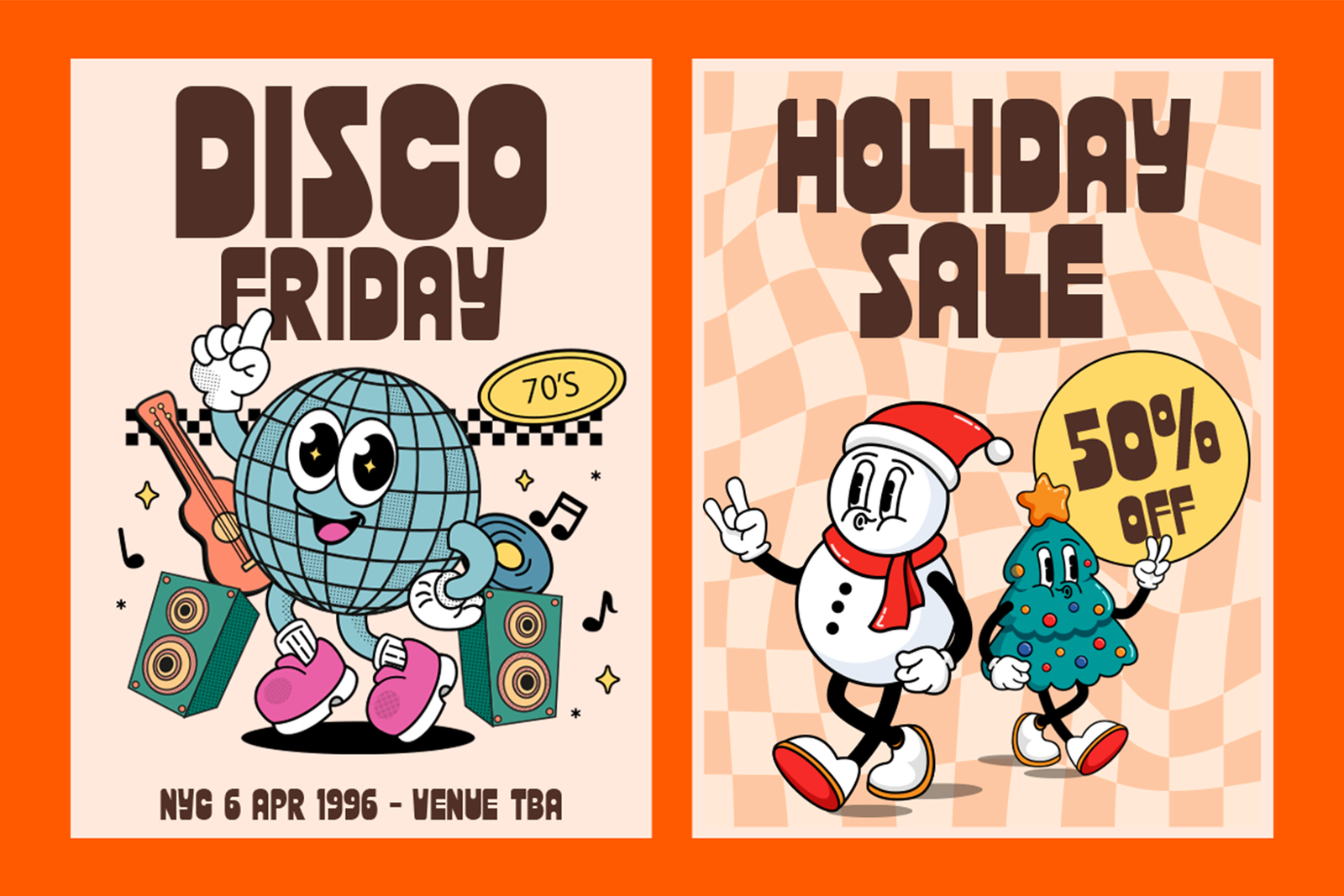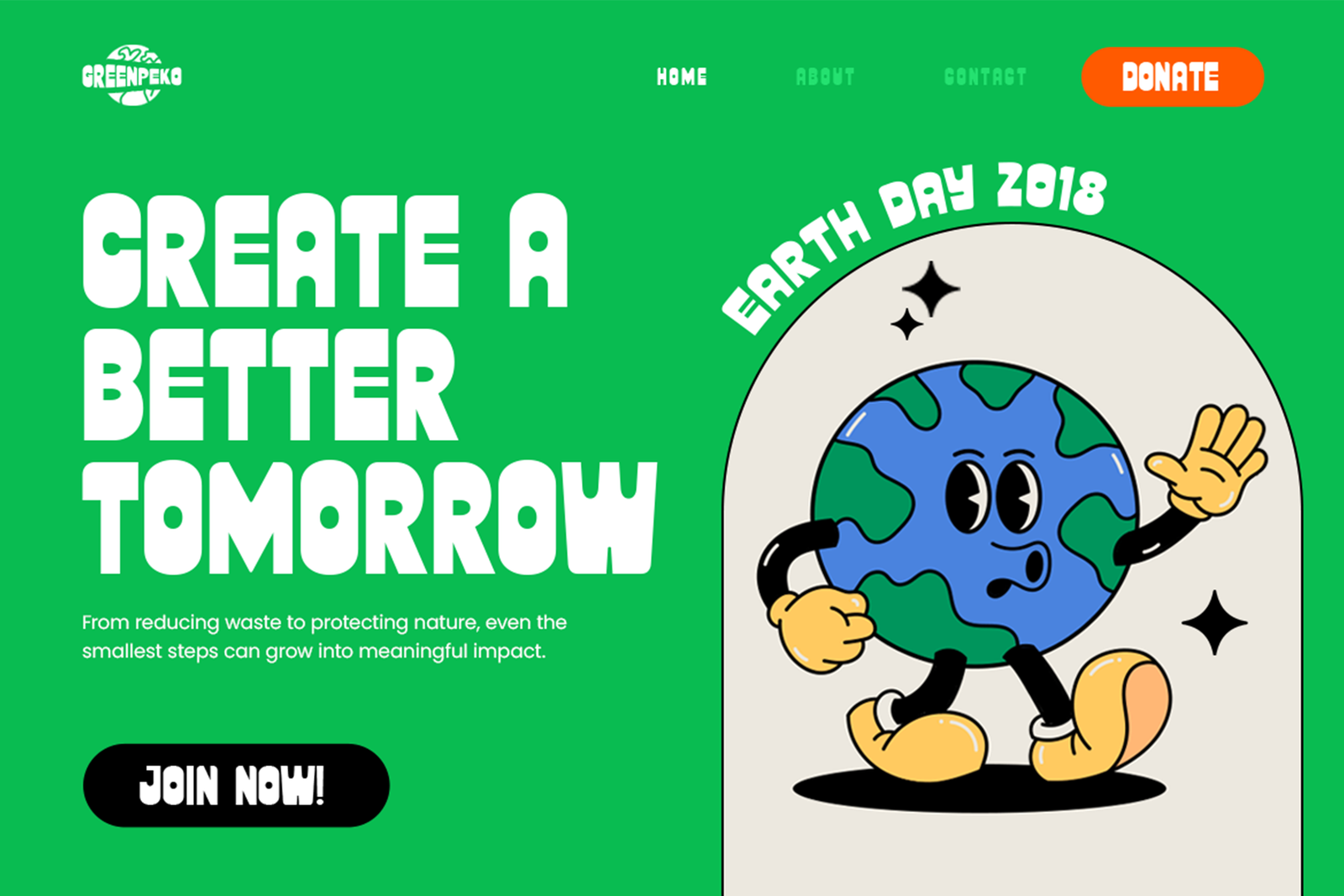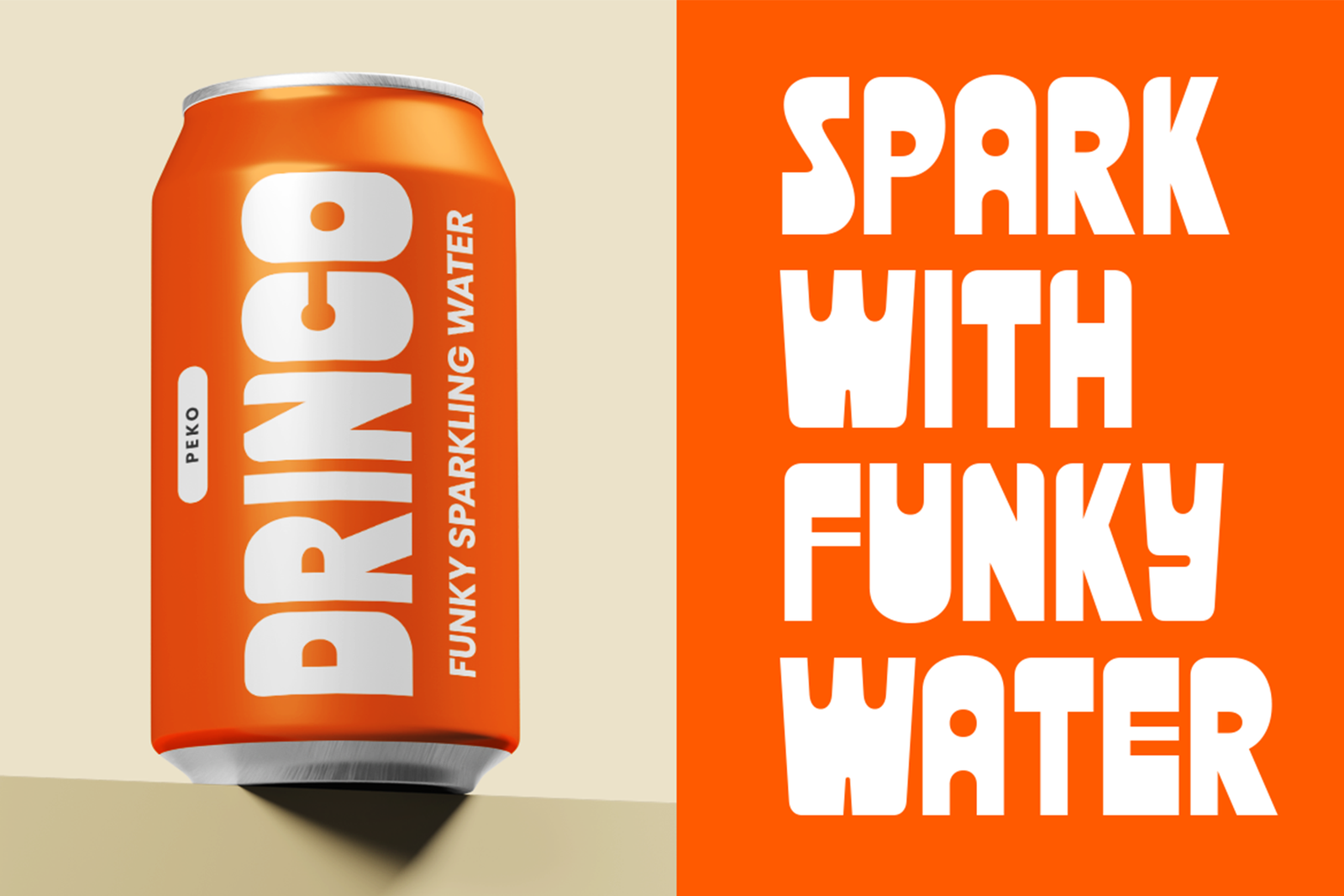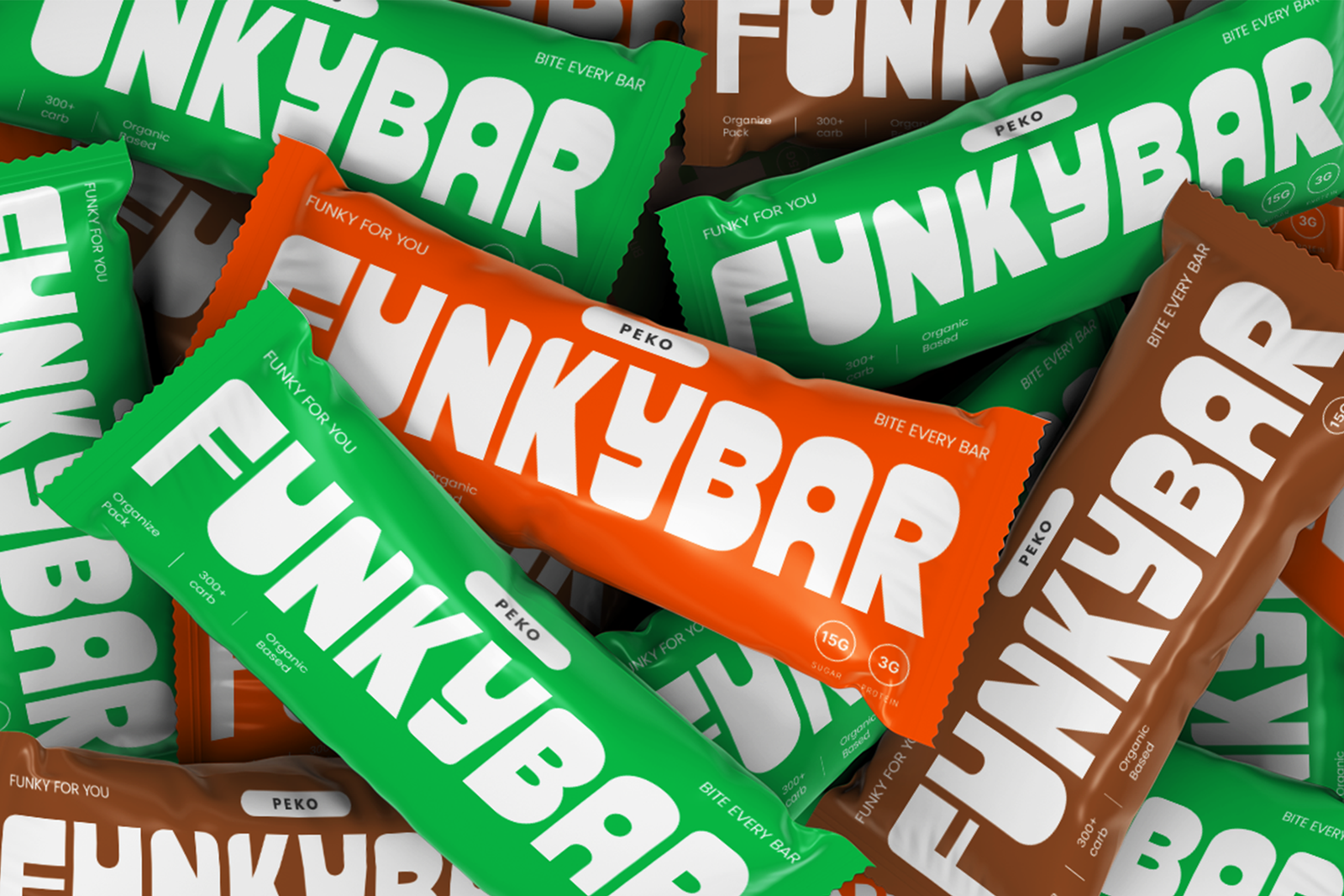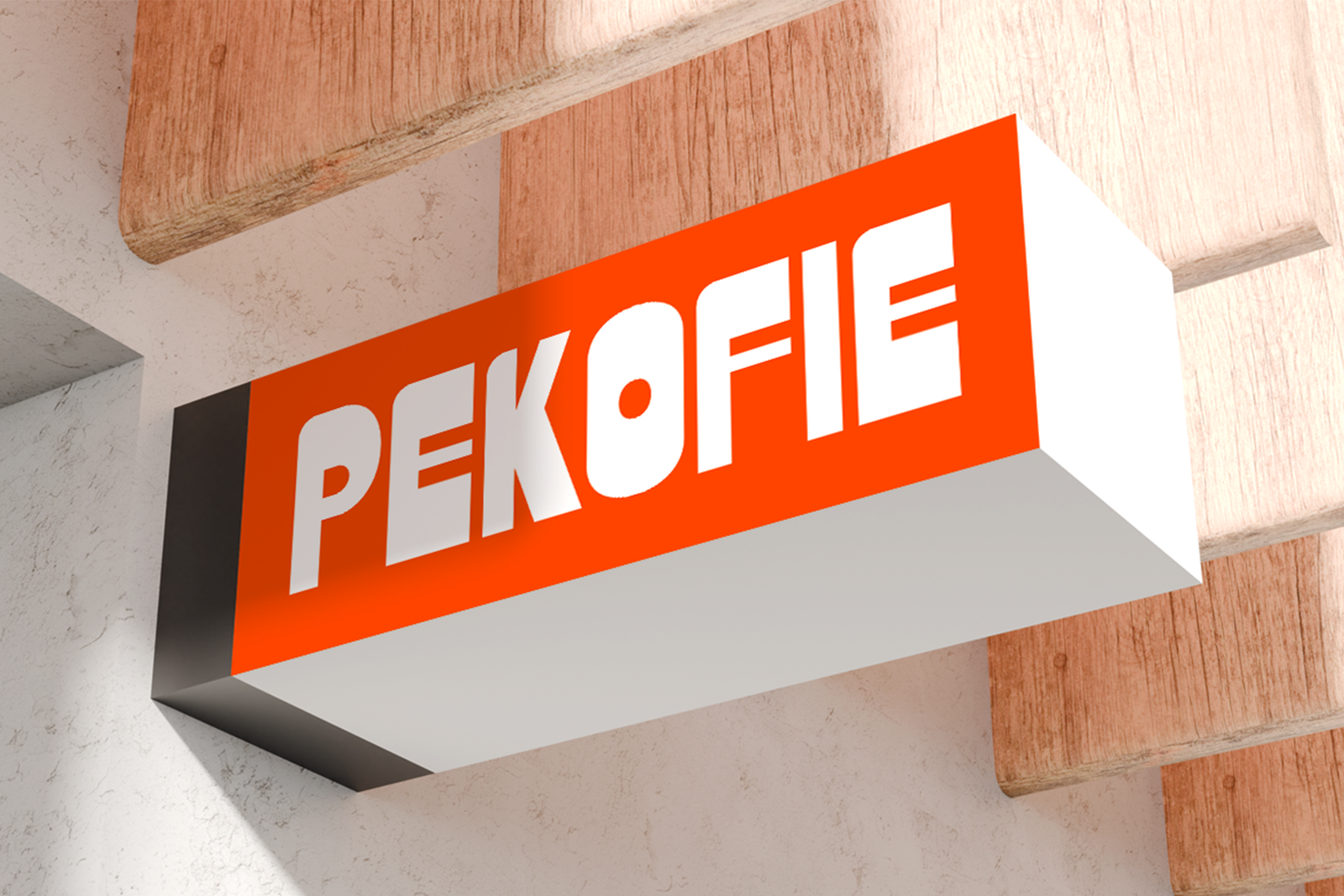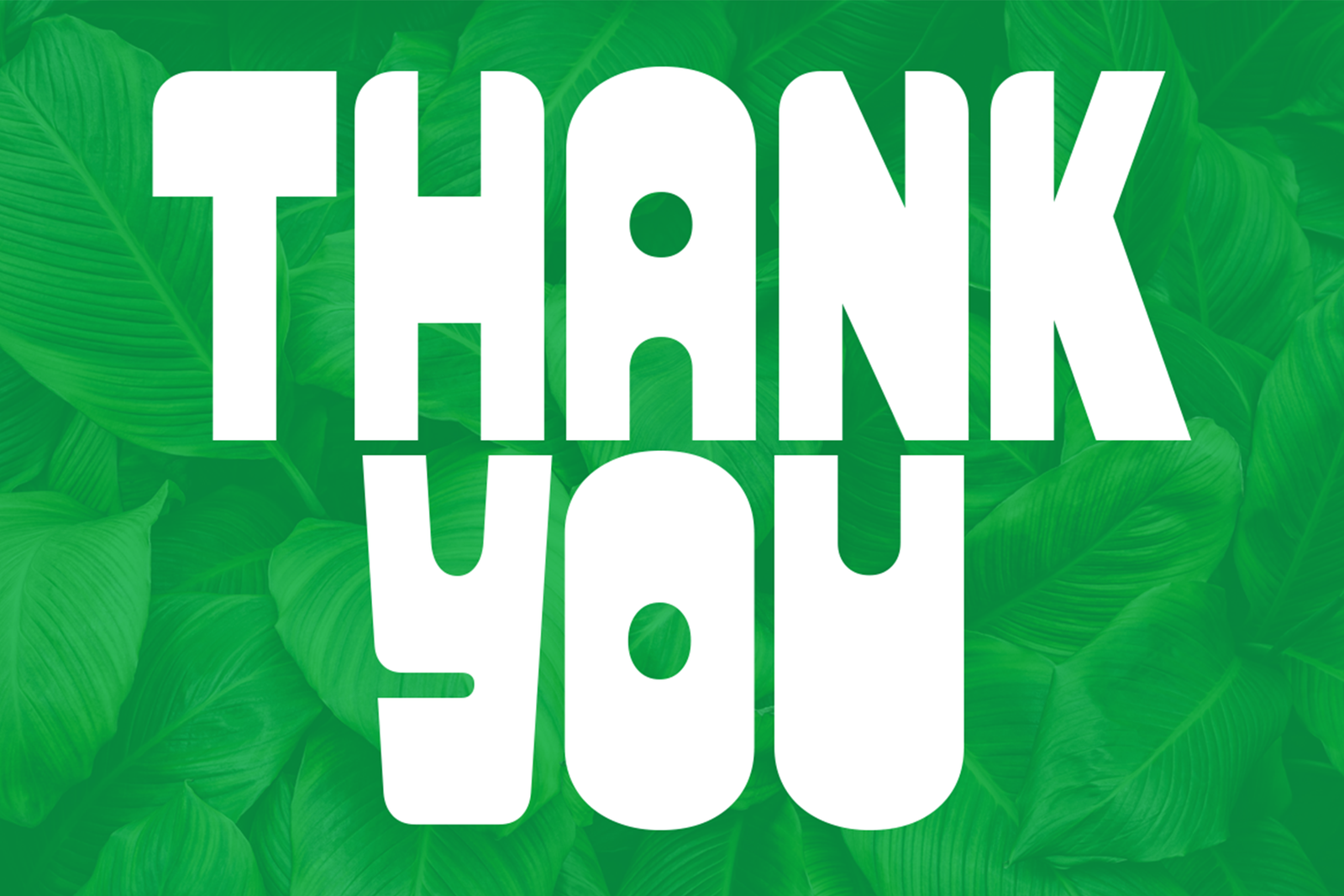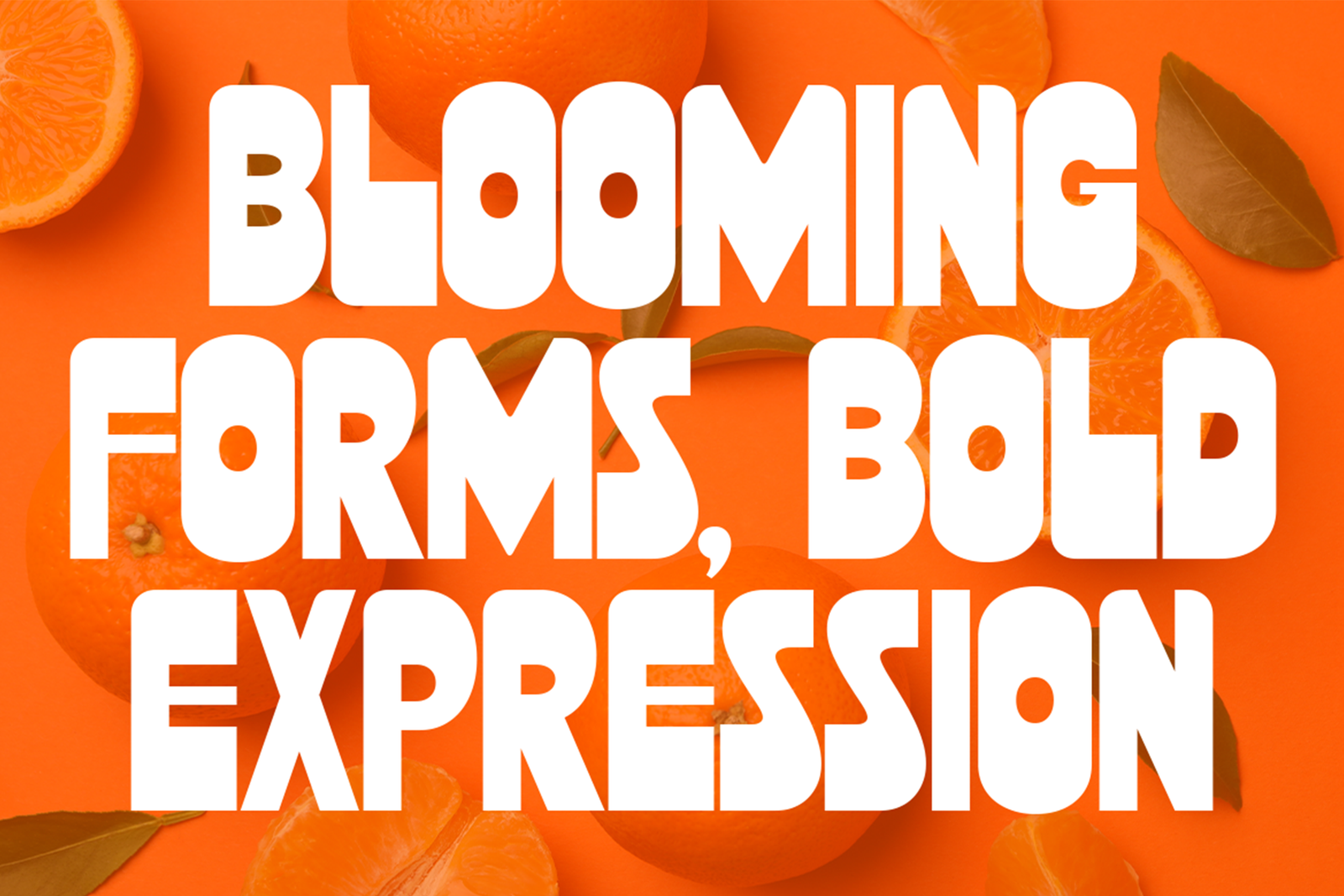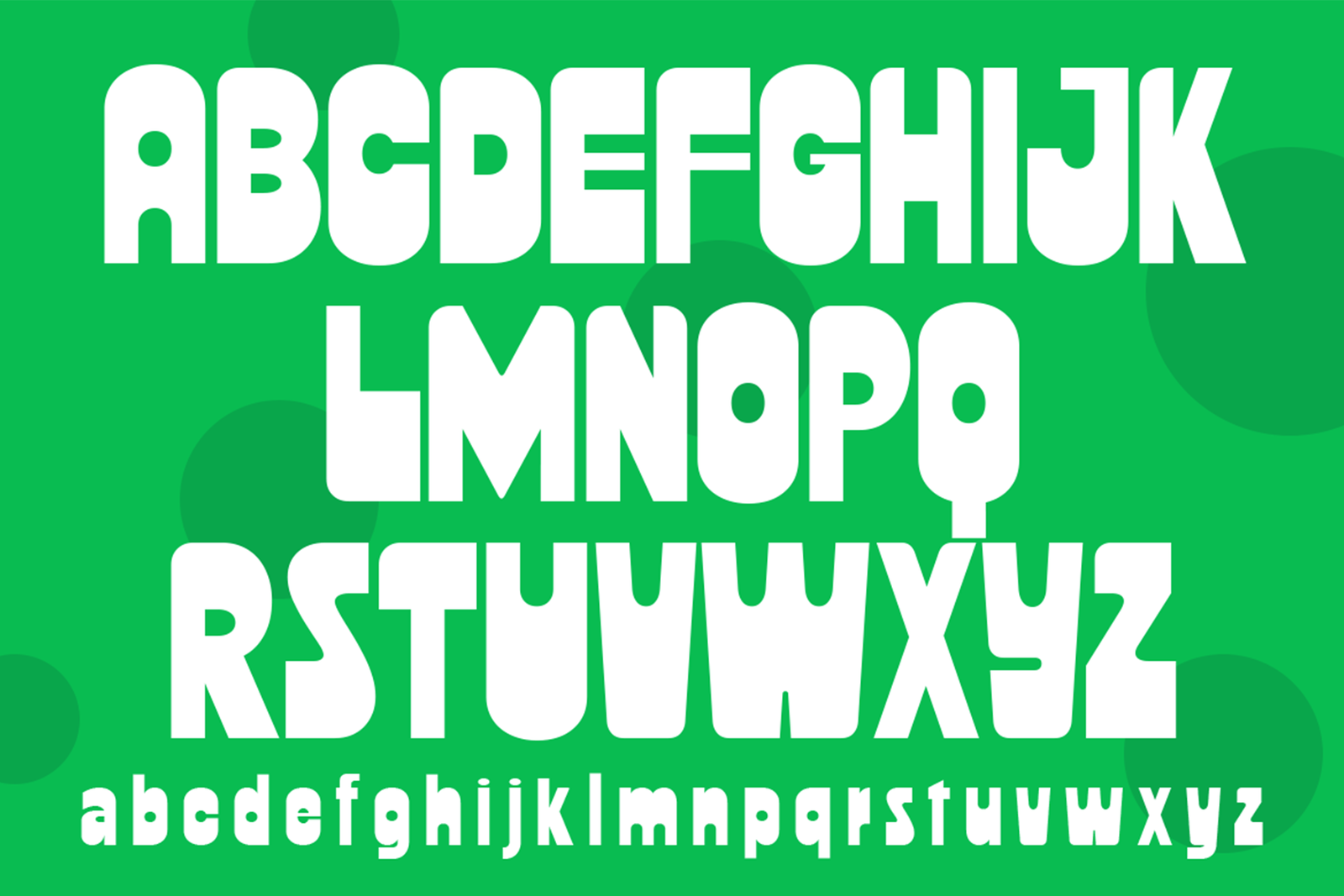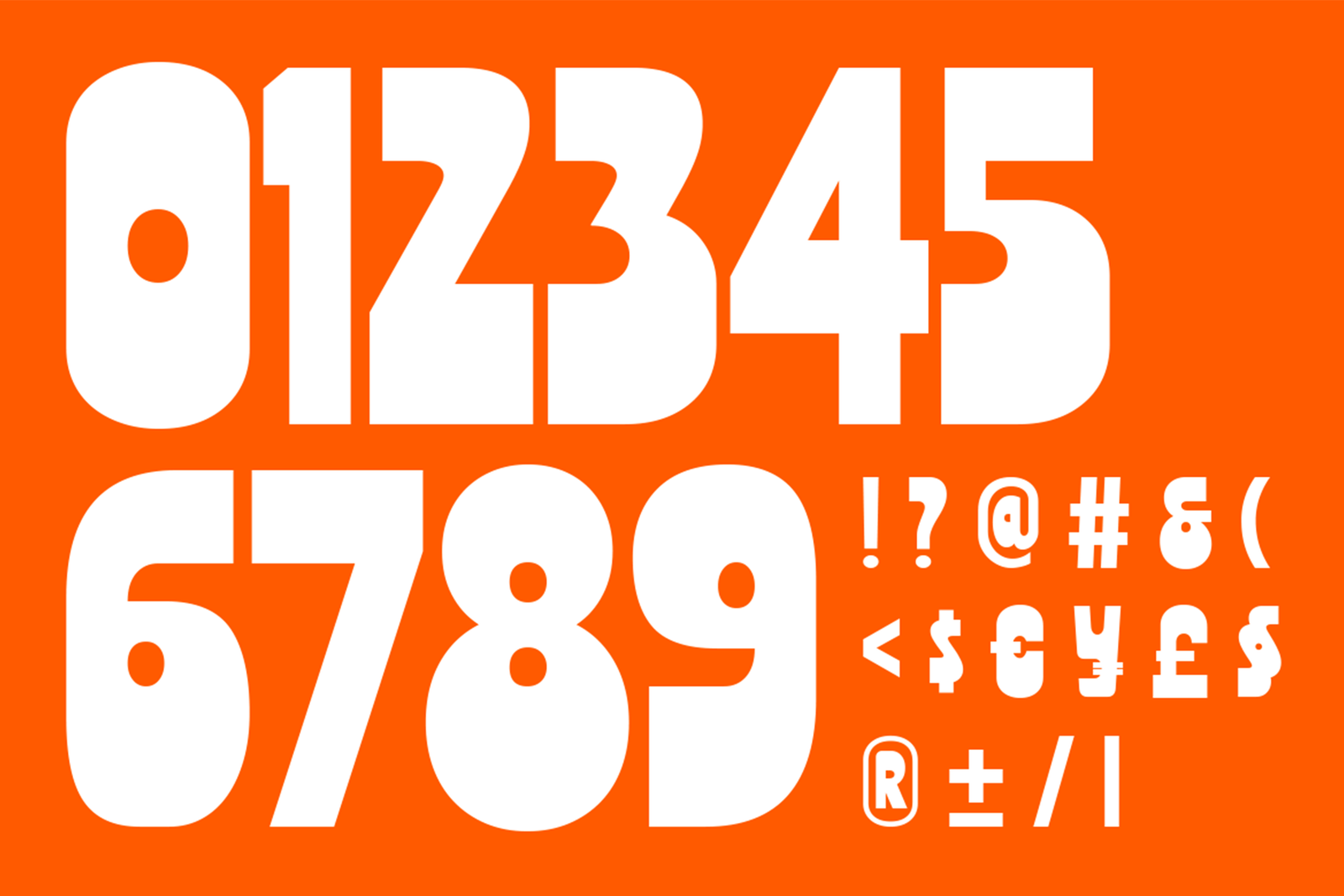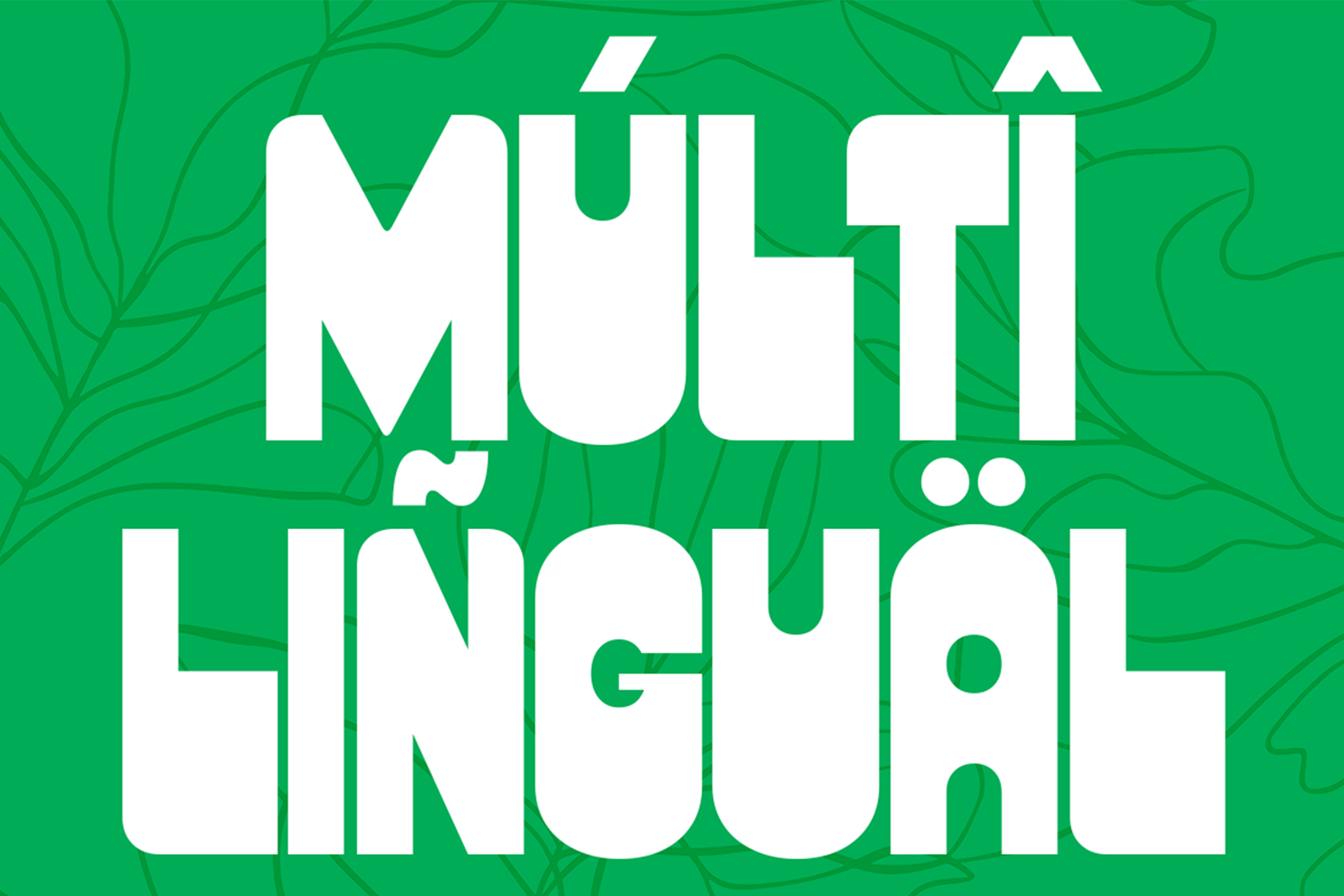
HALIBUS Font is a bold playful display typeface with soft rounded shapes and a cheerful personality. Perfect for branding, packaging, posters, product labels, social media, and fun creative designs.
HALIBUS Font – Bold Playful Display Font
HALIBUS Font is a bold playful display typeface designed with soft rounded shapes, chunky letterforms, and a friendly personality. Its unique structure creates a cheerful and expressive style that helps every design feel more lively, modern, and memorable.With its bold appearance and smooth curves, HALIBUS brings a fun visual character while maintaining good readability. This typeface is perfect for projects that need a bright, energetic, and eye-catching look without feeling too complicated.HALIBUS works beautifully for posters, branding, packaging, product labels, social media graphics, food brands, snack products, beverage designs, kids-themed projects, and retro-inspired visuals. It is also a great choice for logos, promotional materials, stickers, and creative campaigns that require a playful and approachable style.The font includes uppercase and lowercase letters, numbers, symbols, punctuation, and multilingual support. Whether used for large headlines, brand identities, packaging designs, or digital content, HALIBUS adds a bold and cheerful personality to every project.
Features:
• Uppercase & Lowercase Letters
• Numbers, Symbols & Punctuation
• Multilingual Support
• Bold Rounded Display Style
• Fun and Friendly Character
HALIBUS Font is an excellent choice for designers looking for a unique, playful, and expressive typeface for modern branding and creative visual projects.
HALIBUS Font – Bold Playful Display Typeface